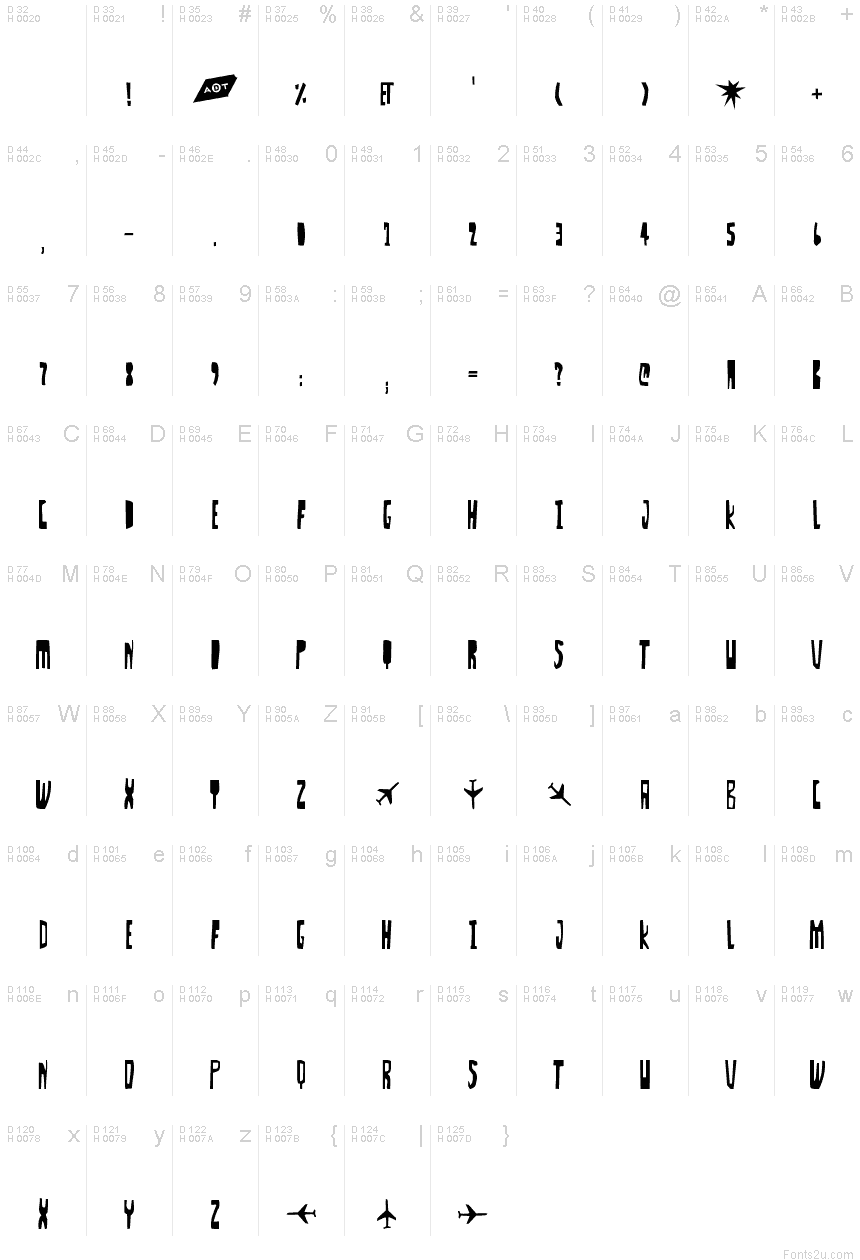
La Pierre, created by ADT and cut by Olivier Umecker, is a free hand-cut display font with tall, irregular block letters. Blunt edges and shifting stroke widths give the lettering a rough, improvised silhouette.
For music posters and children's entertainment alike, the uneven forms suggest letters assembled from strips of paper or wood. That handmade construction also suits festival signage and playful merchandise, linking these different settings through a direct, slightly unruly graphic style.